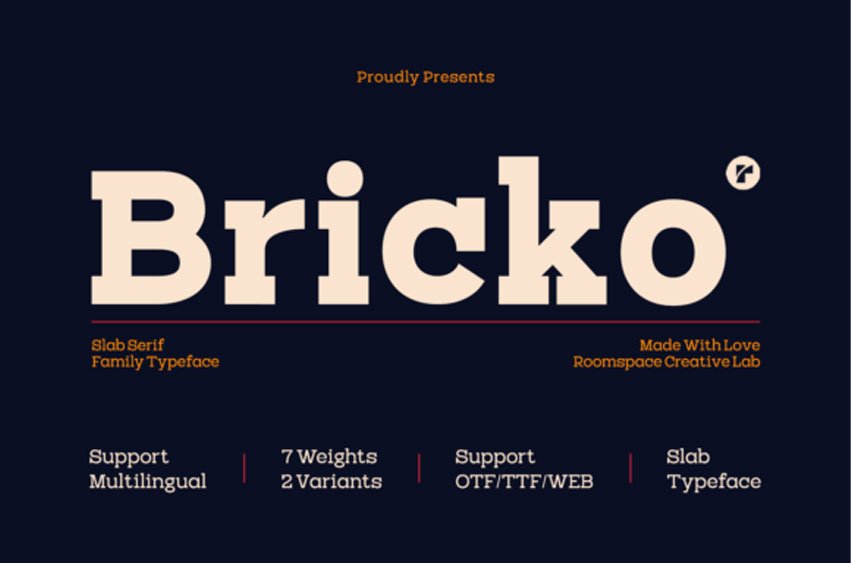
Bricko Font is a modern slab serif font family created for designers and creators who need strong, readable typography. Featuring solid letterforms and balanced proportions, Bricko is perfect for branding, headlines, logos, and editorial layouts.
Its professional look makes it suitable for both print and digital projects, from websites to packaging and marketing materials.